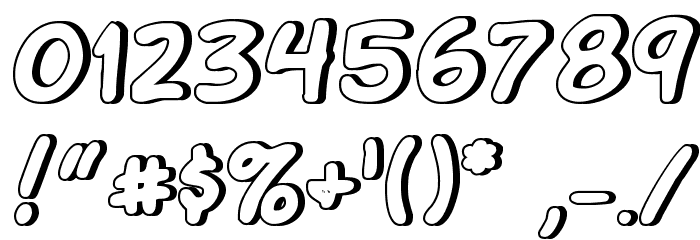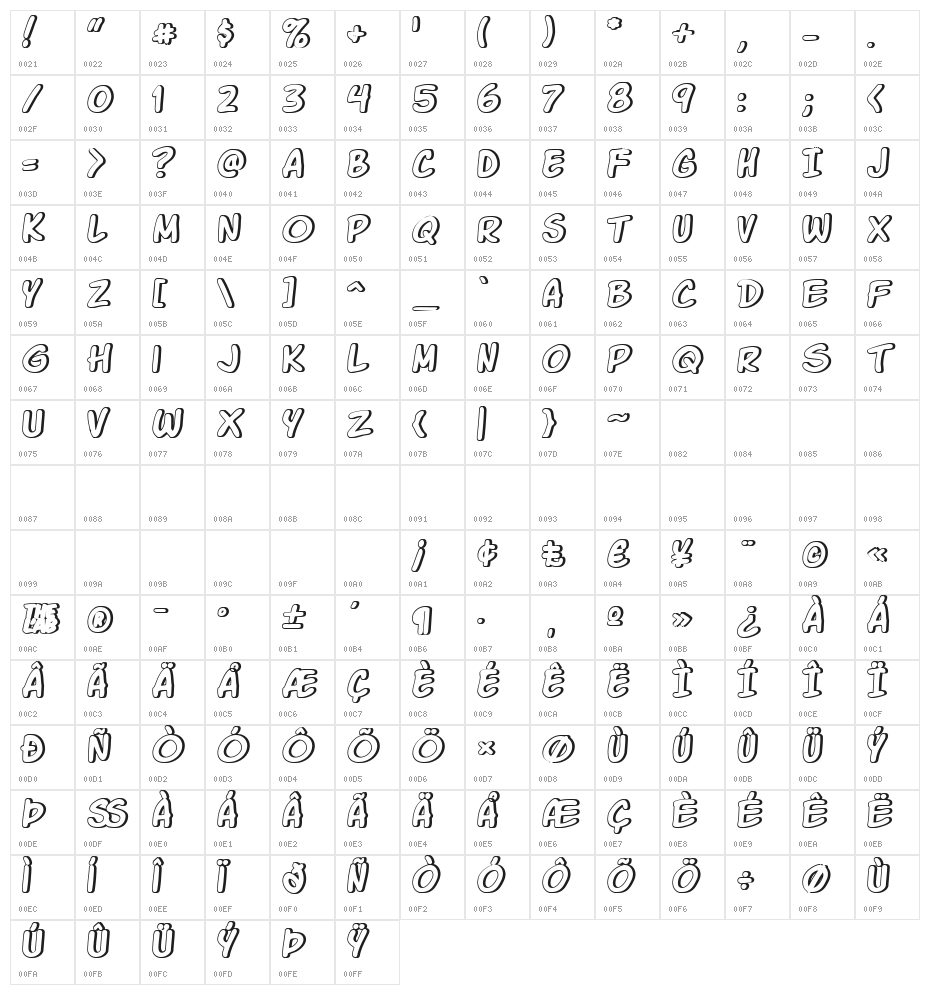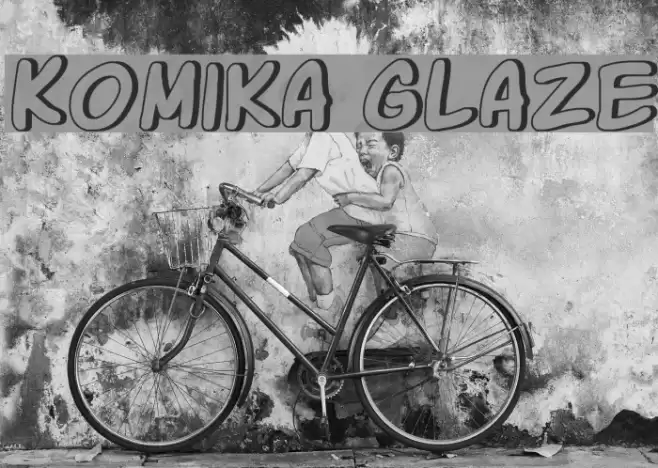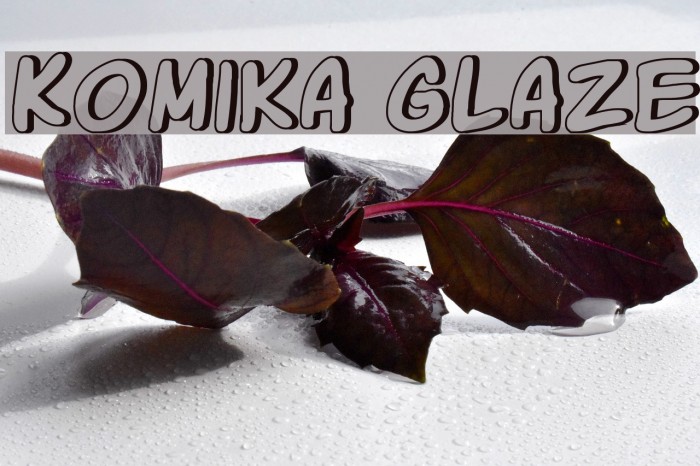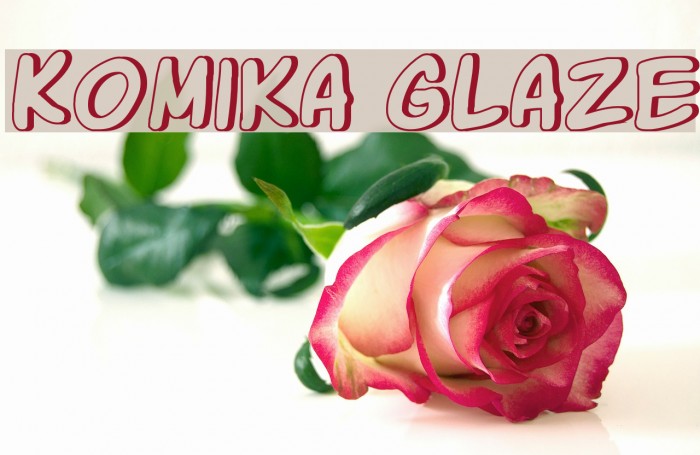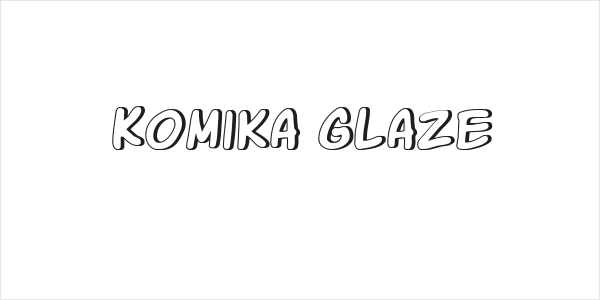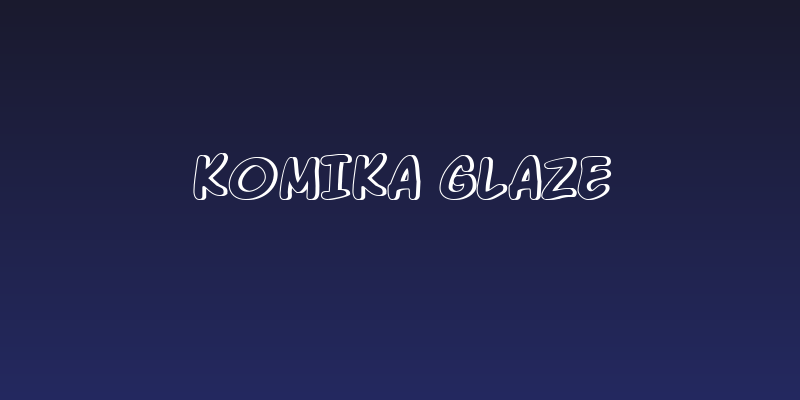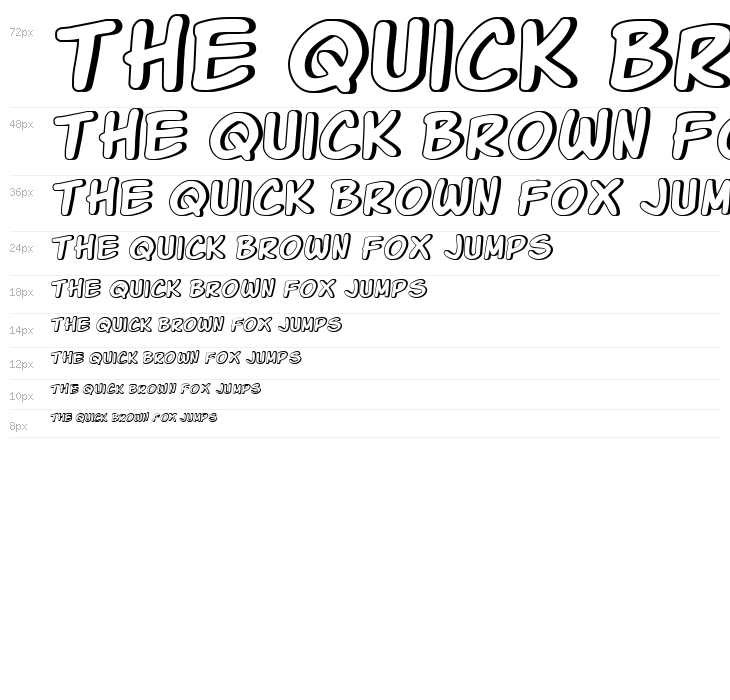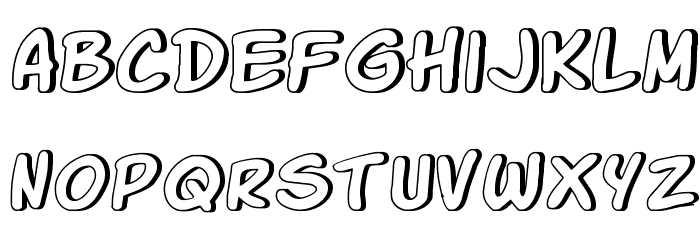
Komika Glaze Font
Komika Glaze Description
This playful and bold font features a comic-style design with thick, rounded edges and a fun, energetic vibe. The characters are outlined, giving them a three-dimensional appearance that stands out on any page. Its informal and whimsical nature makes it perfect for projects that require a touch of humor or creativity. The font maintains consistent stroke thickness, providing a uniform look across all characters. The spacing between characters is normal, ensuring readability while maintaining its playful aesthetic.
| Overall Style | Playful, Comic |
| Proposed Projects | Ideal for comic books, children's books, playful posters, and creative branding. |